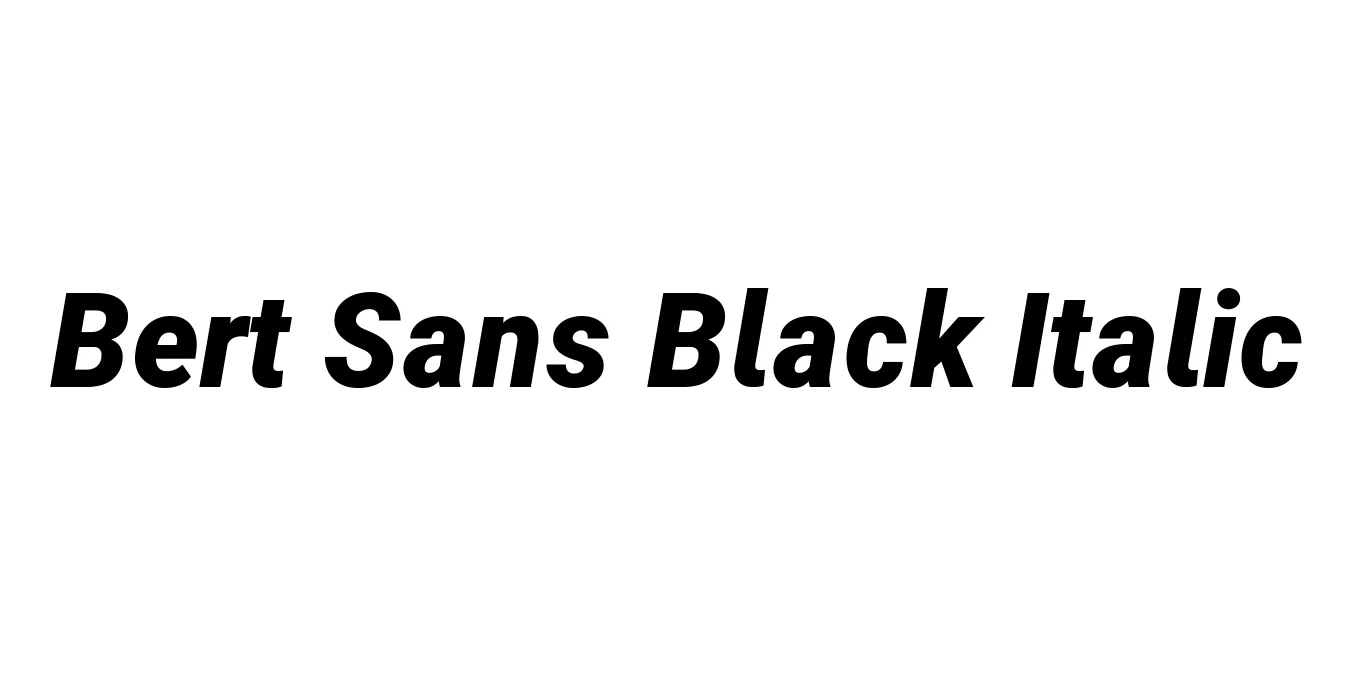
Bert Sans Black Italic
Designed by Berton Hasebe
| Category | Humanist Sans-Serif |
| Designer | Berton Hasebe |
Bert Sans Black Italic is a contemporary humanist sans-serif family that bridges the gap between mechanical precision and calligraphic warmth. The Black Italic weight specifically provides a powerful, slanted emphasis that commands attention while maintaining the fluid dynamics of the Italian italic tradition, making it a standout choice for high-impact typography where movement and strength are required.
Developed for extreme versatility in modern branding and editorial design, Bert Sans excels in high-resolution environments. Its robust stroke weights and carefully adjusted counters ensure legibility in both digital interfaces and print media. This specific weight is often utilized for heavy-duty display purposes where an aggressive yet sophisticated tone is needed to communicate authority, speed, and modern elegance.
Bert Sans Black Italic Best Uses
Perfect for bold, aggressive titles in print and digital media.
Ideal for creating strong, memorable visual identities for tech and lifestyle brands.
Great for large-scale graphics that need to convey motion and impact.
Excellent for pull-quotes and emphasized sections in fashion or design magazines.